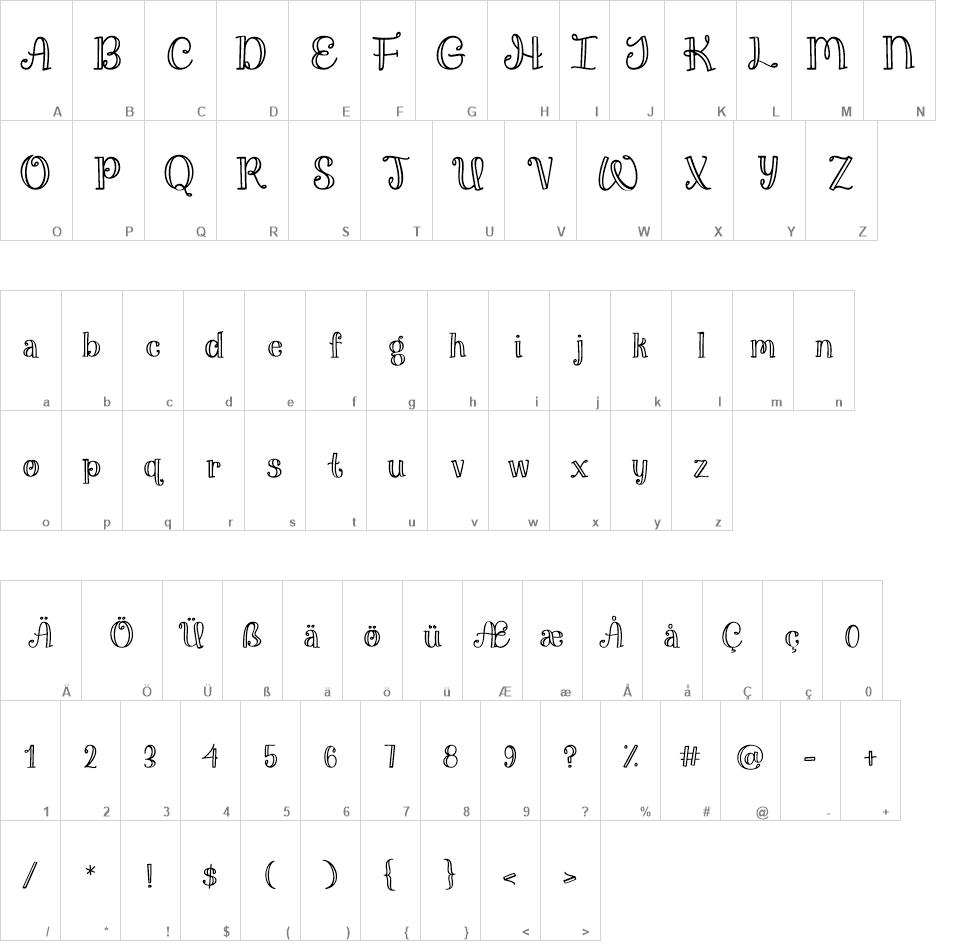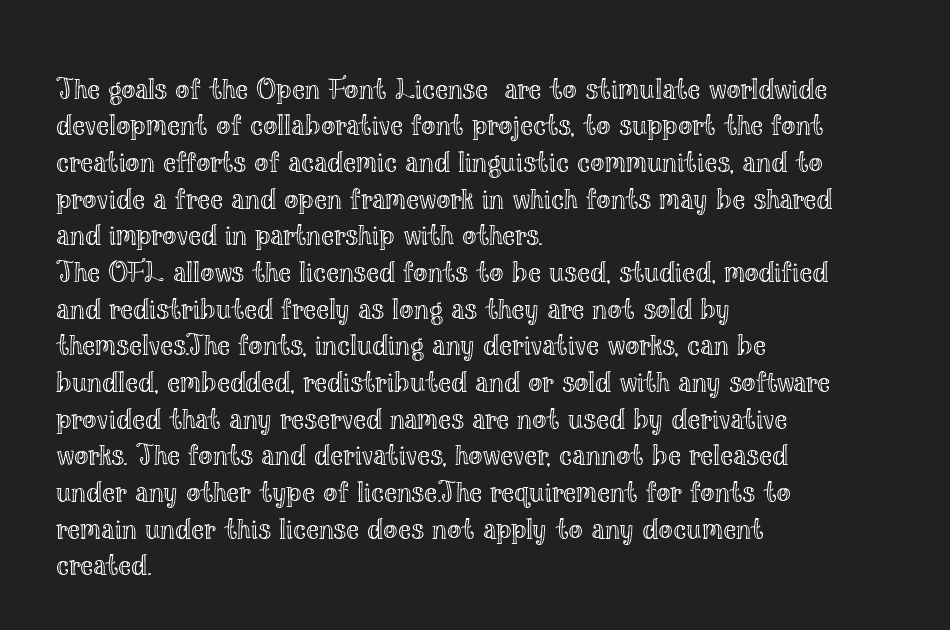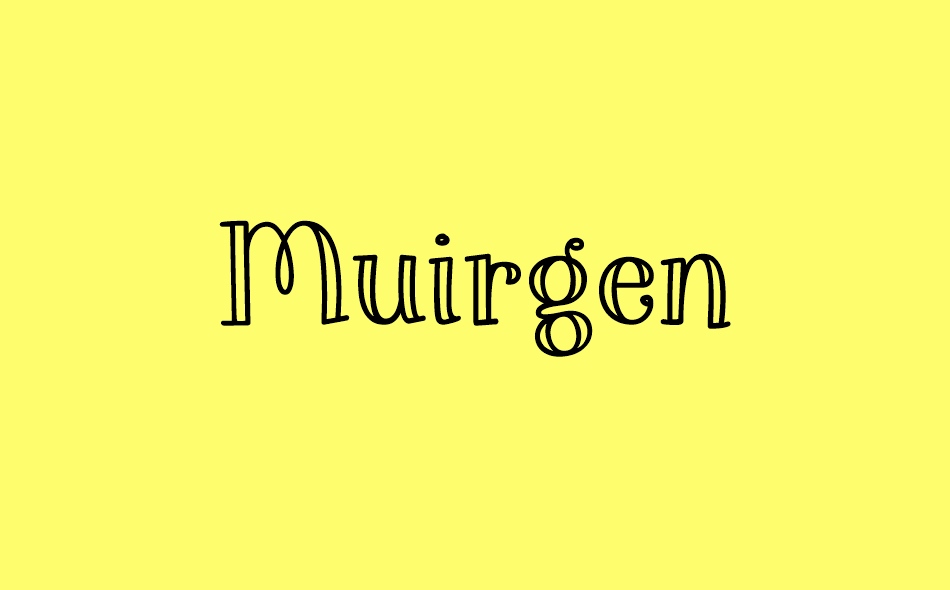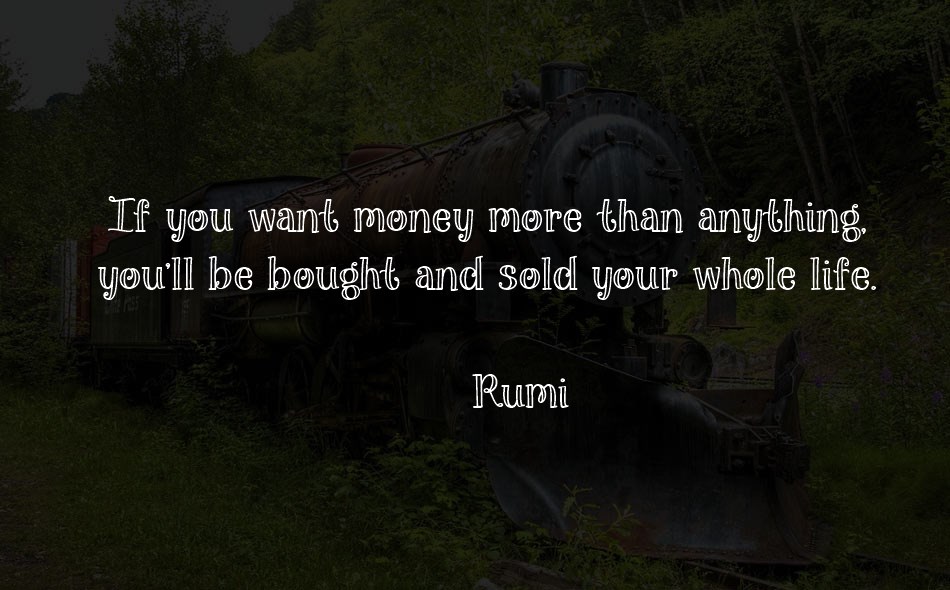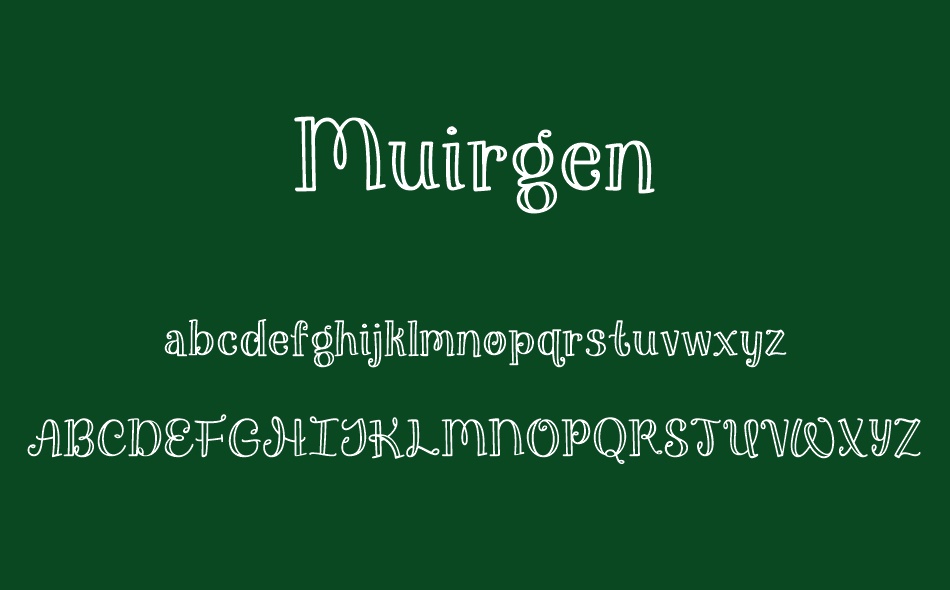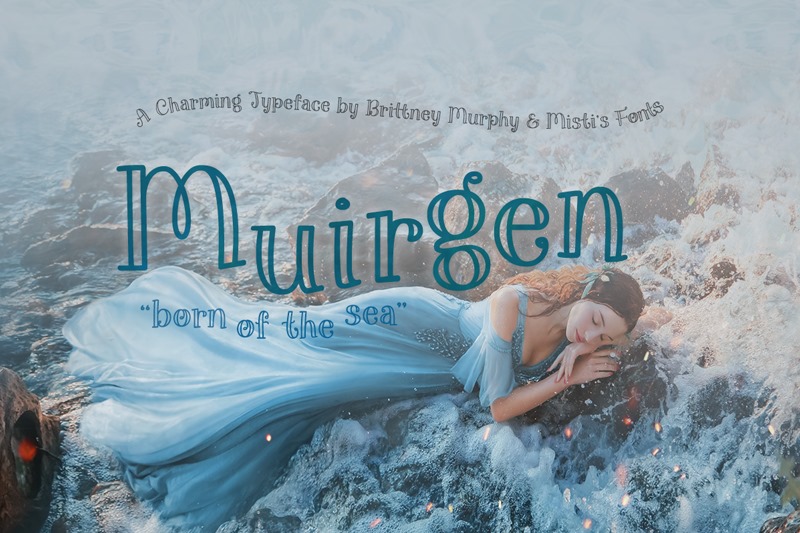
Muirgen font
Muirgen is a hollow handdrawn serif created by Brittney Murphy Design & Mistis Fonts. Designed in a rustic, fairytale style, Muirgen will add a touch of friendliness and whimsy to your design projects. Unique, yet highly legible, this font can be used for headlines, bylines, or content alike.